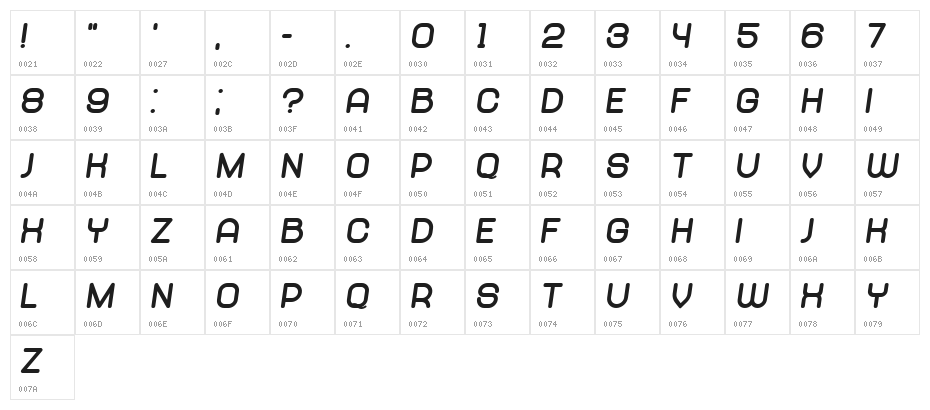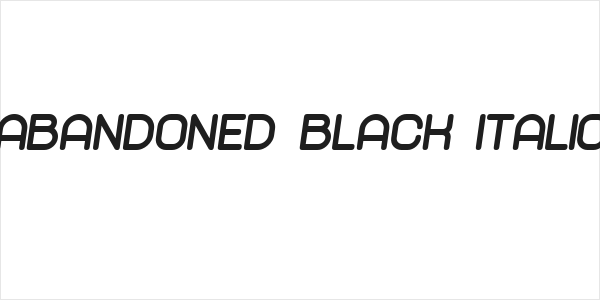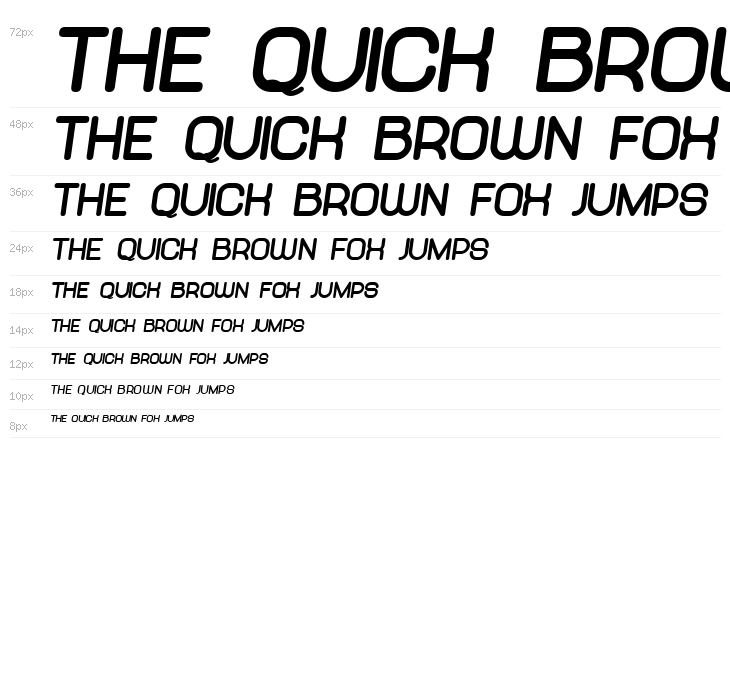
Abandoned Black Italic Font
Abandoned Black Italic Description
This font features a bold and italicized style with a modern and sleek appearance. The characters are rounded with smooth curves, giving it a futuristic and dynamic look. The uppercase and lowercase letters maintain a consistent style, with a slight slant that adds a sense of motion. The numbers are equally bold and maintain the same rounded characteristics, ensuring uniformity across all characters. The special characters are designed to match the overall aesthetic, making this font suitable for projects that require a contemporary and energetic feel.
Use CaseLogos, Headlines, Advertising
Proposed ProjectsIdeal for technology branding, sports team logos, modern advertising, and dynamic web design.